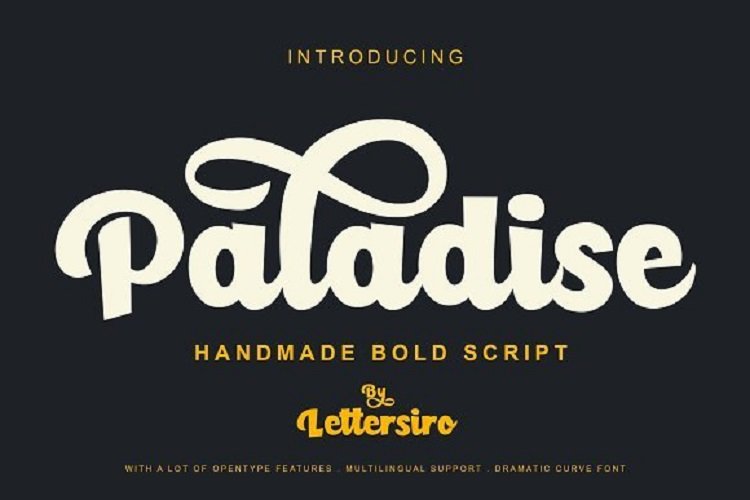
Paladise Script Font
We just launch our newest product. We made a playful font, so cool and so beauty, called Paladise Font.
This font is great for logo, poster, clothing, branding, party invitation, and many many other cool design projeects. Paladise comes with a loooot of alternate character, and also come with 26 bonus vectors.